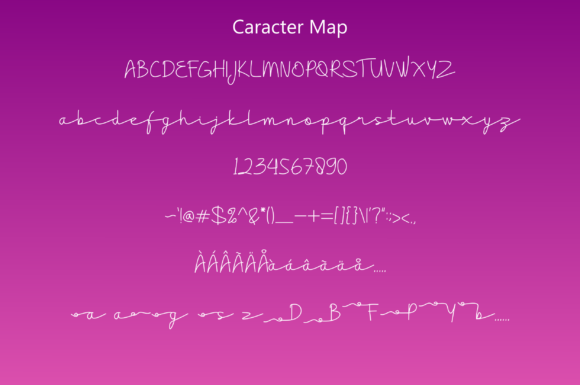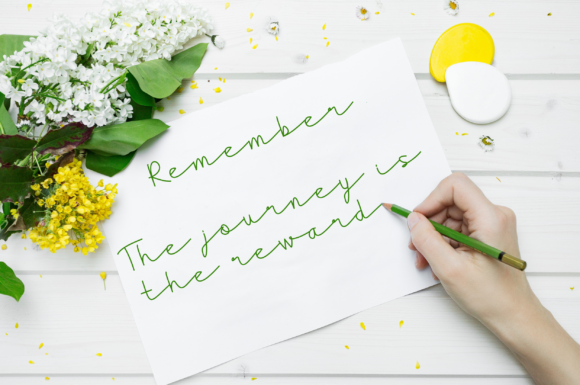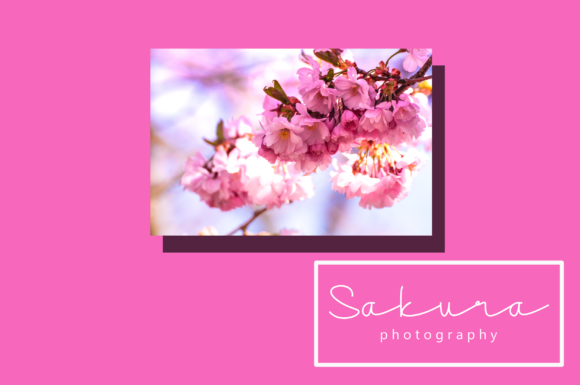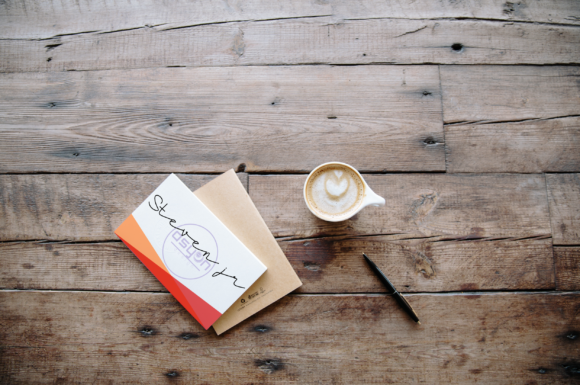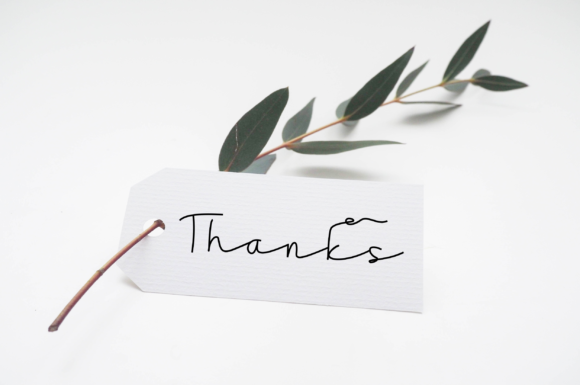
Layla Font
About Layla Font
Layla is a beautiful handwritten font, with a splash of authenticity. It will inspire any design projects that need an authentic note.